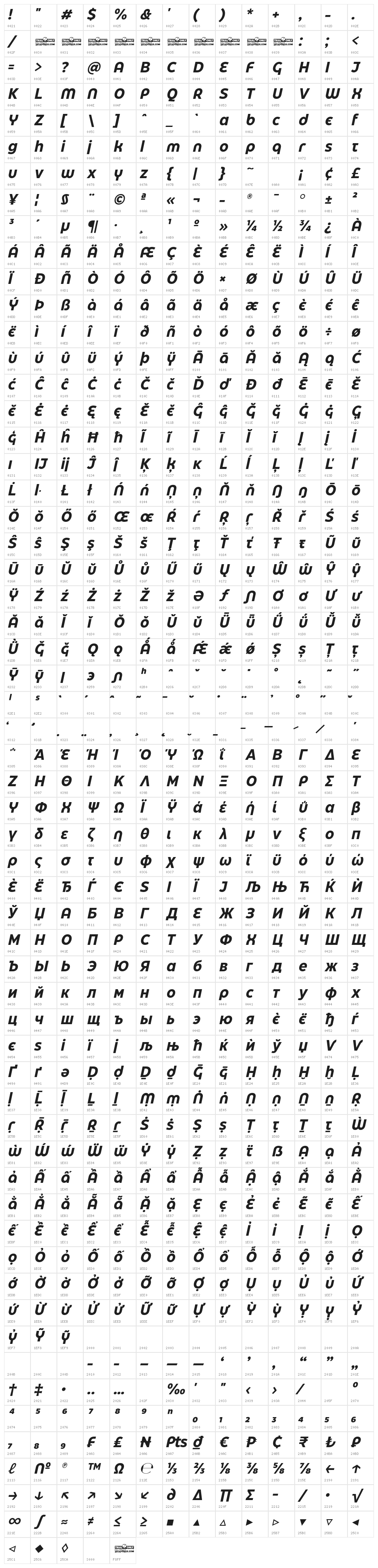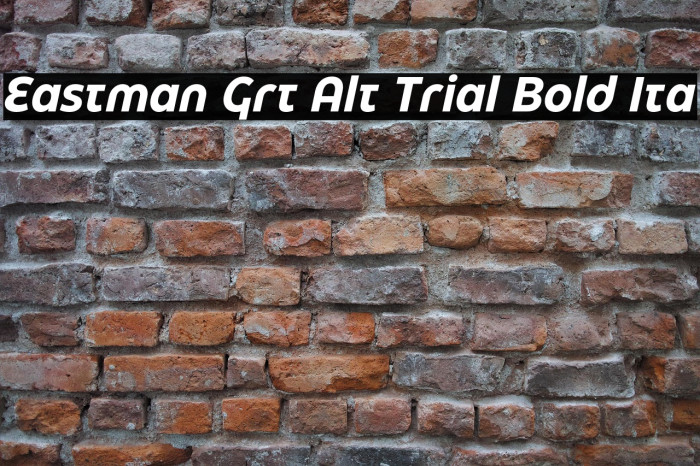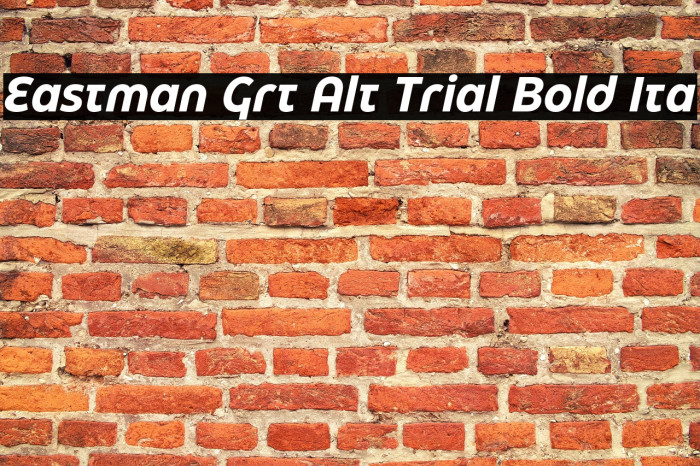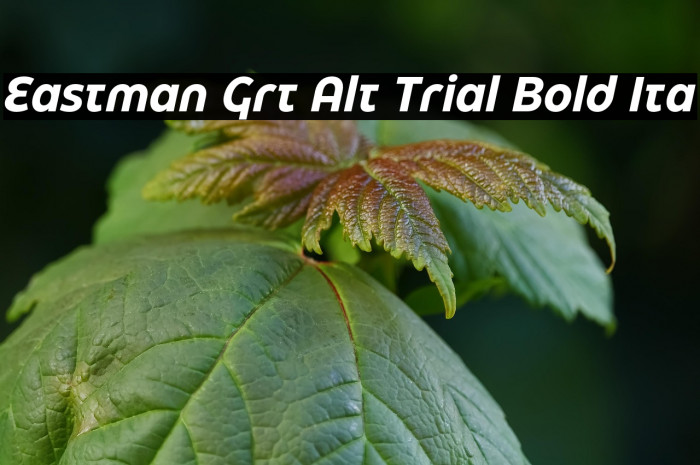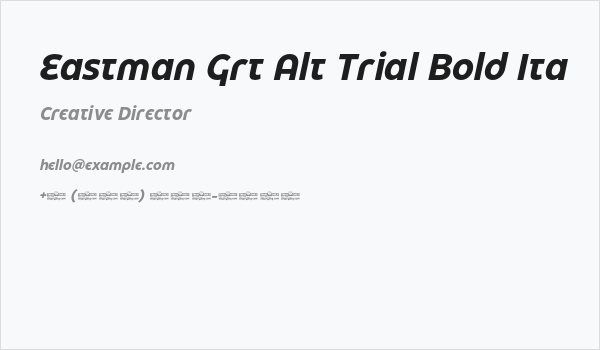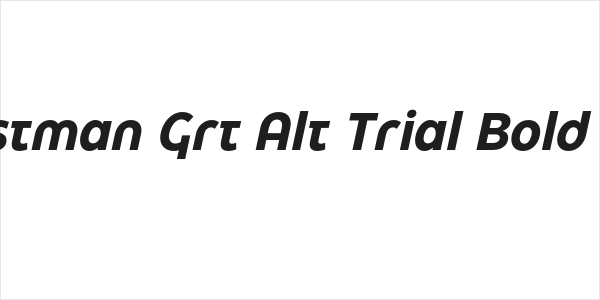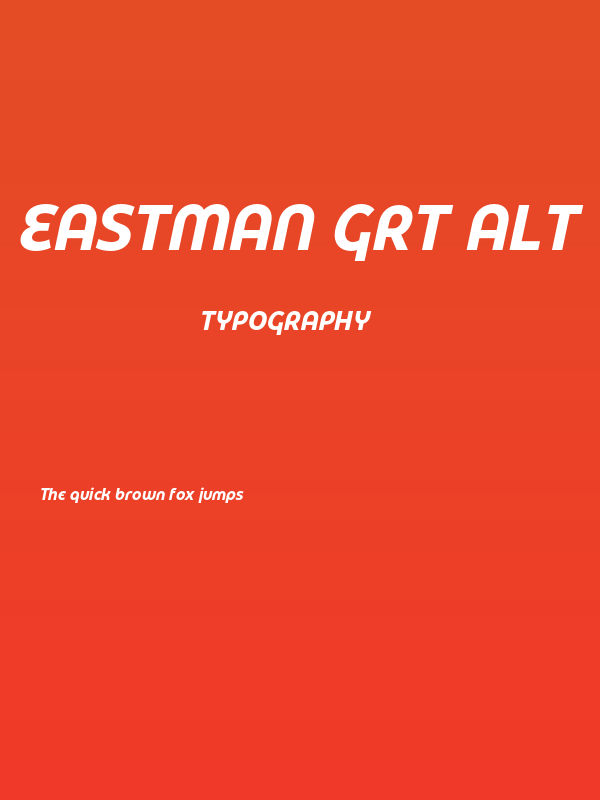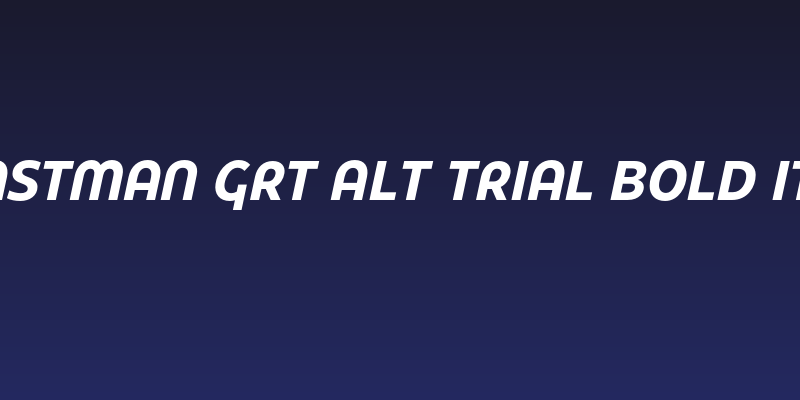
Eastman Grt Alt Trial Bold Ita Font
Eastman Grt Alt Trial Bold Ita Description
This font features a bold and italicized style with a modern and dynamic appearance. The characters are slightly slanted, giving a sense of movement and energy. The strokes are thick and consistent, providing a strong visual impact. The uppercase and lowercase letters maintain a uniform width, contributing to a cohesive look. The special characters and numbers are designed to match the overall boldness and style, ensuring versatility across different uses. The font's design is clean and straightforward, making it suitable for various applications where a bold statement is needed.
| Proposed Projects | Ideal for headlines, branding, advertising, and any project requiring a strong, modern typeface. |